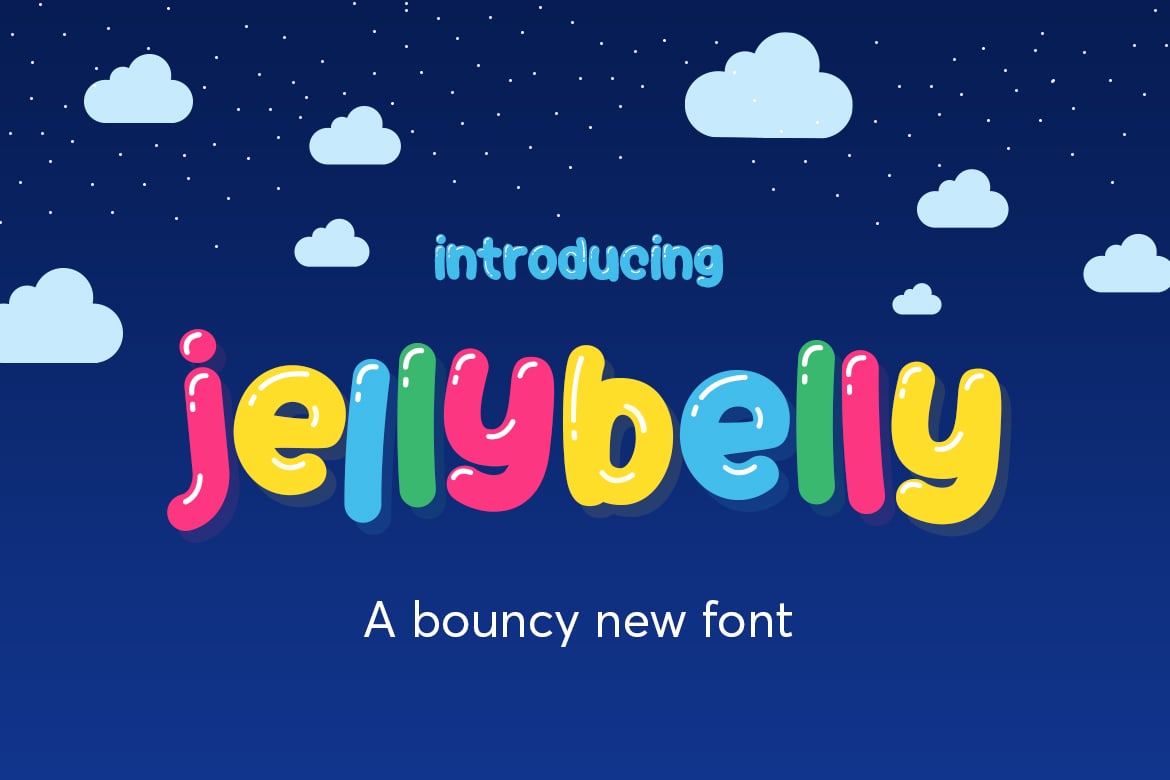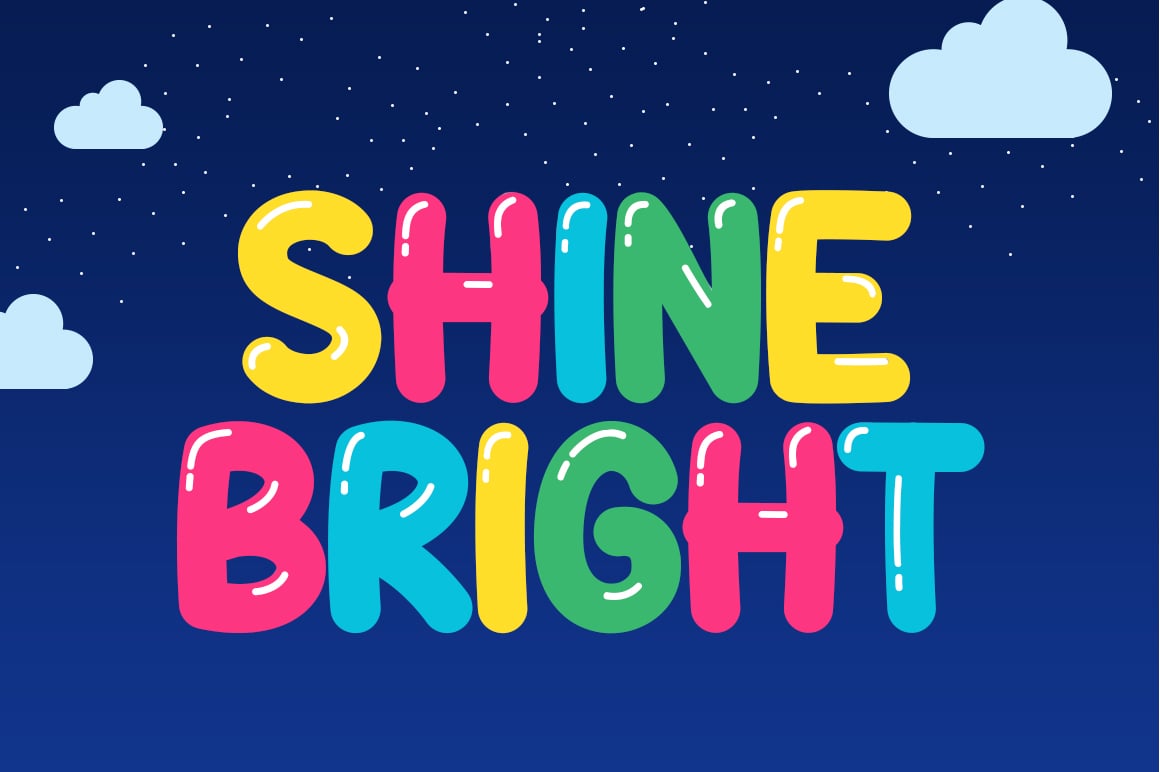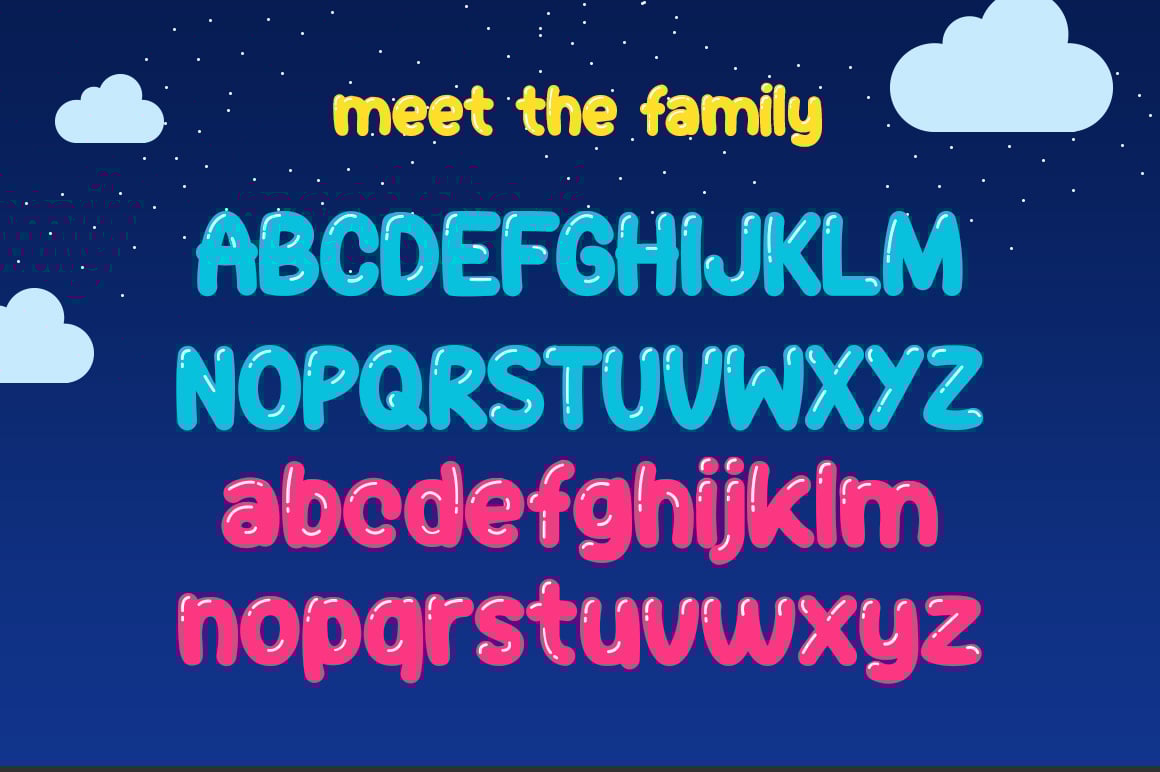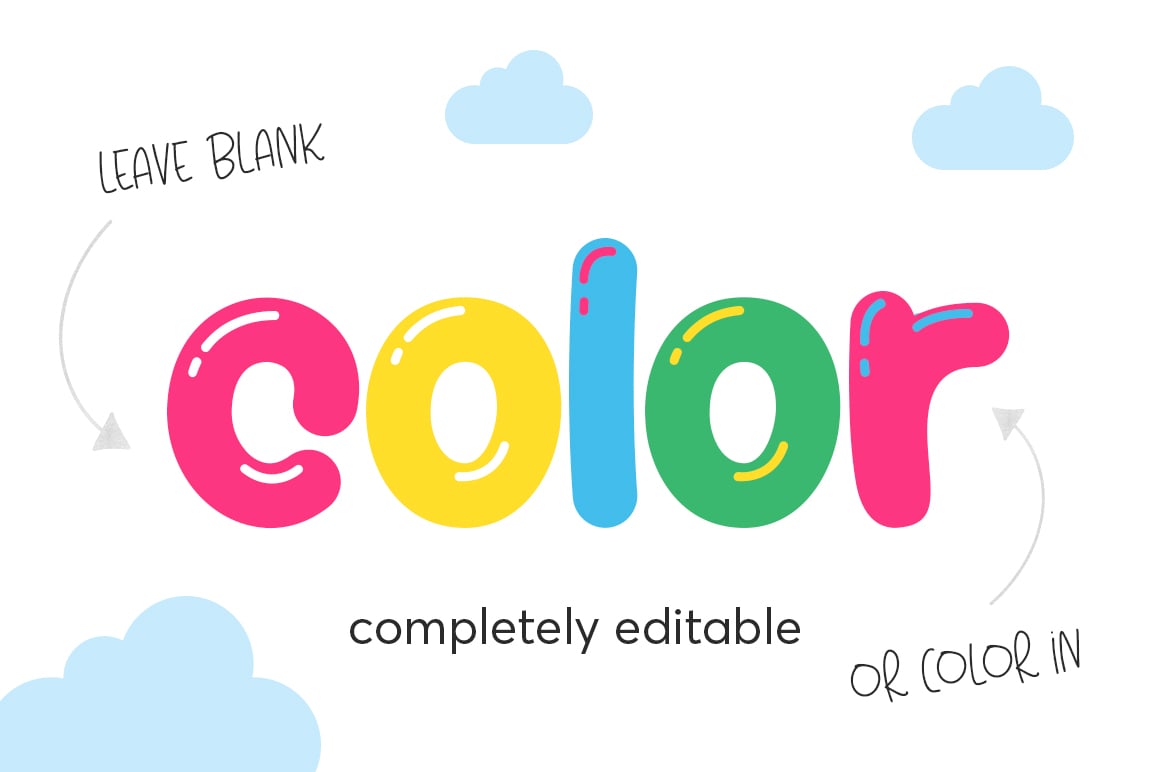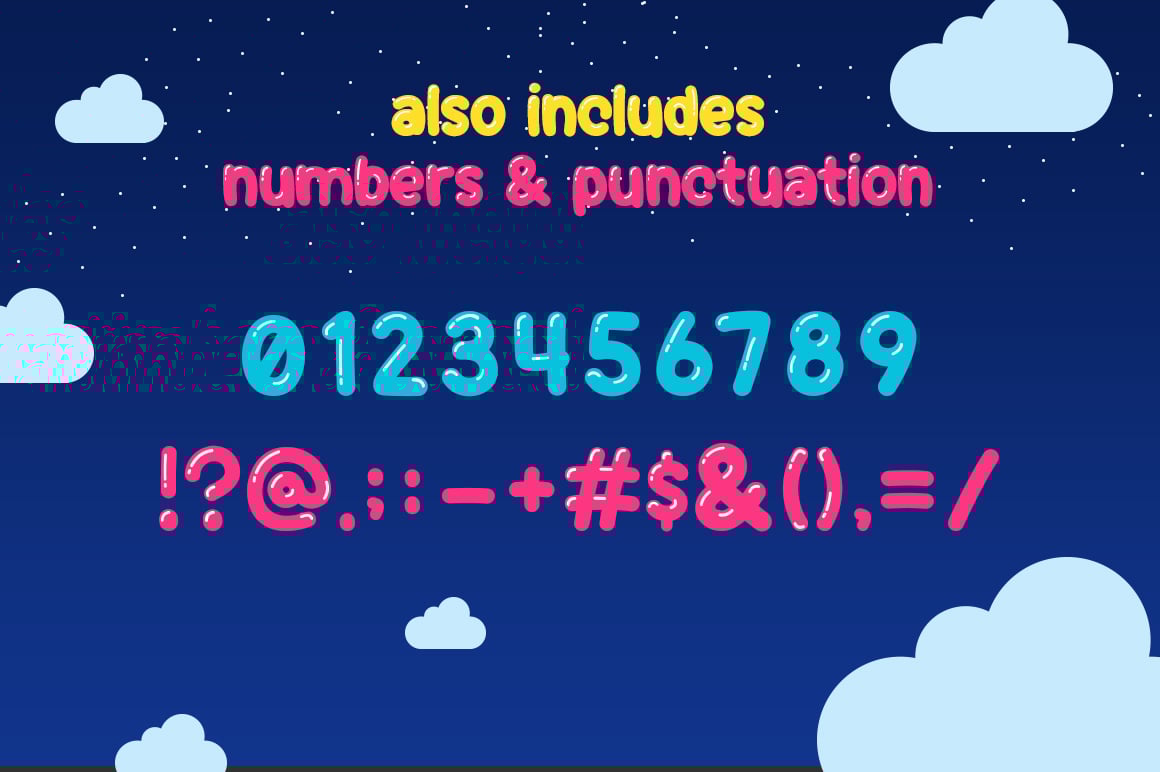
JellyBelly Font
Jelly belly is a jiggly, wiggly and fabulous new font from salt and pepper designs! Perfectly imperfect and rounded with love, this cute new favorite will be a wonderful addition to your collection!